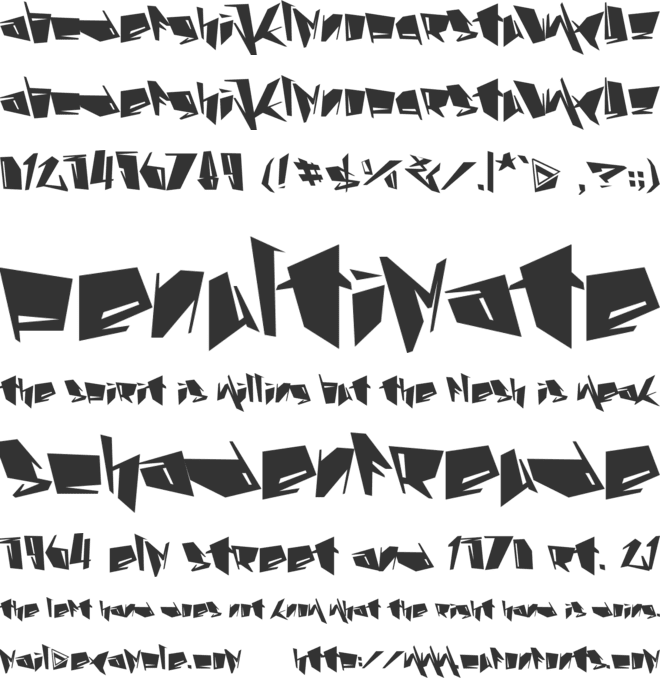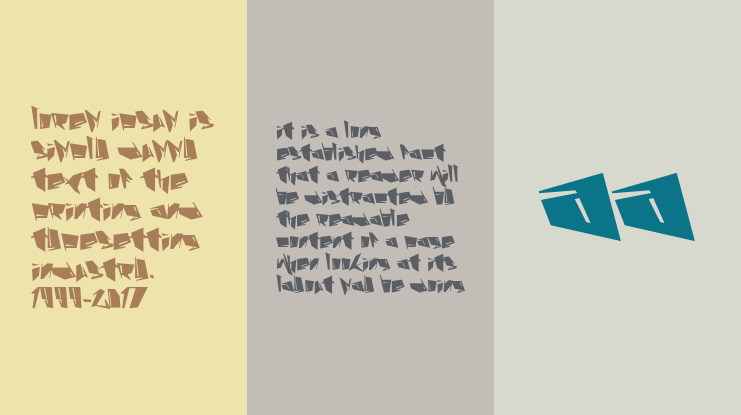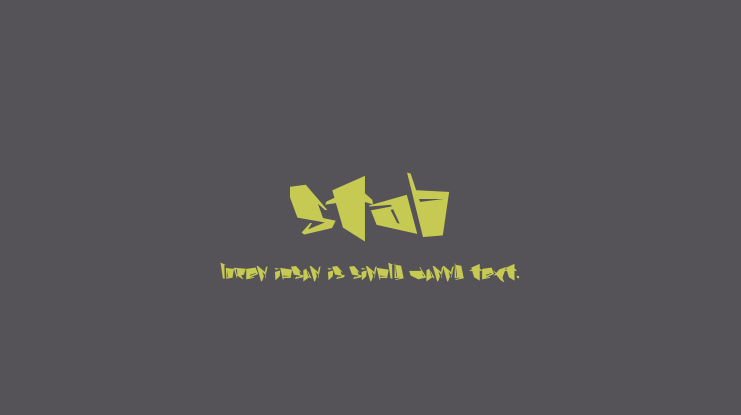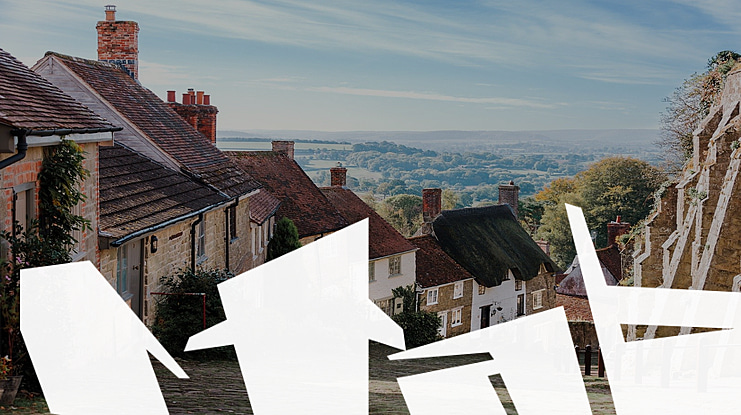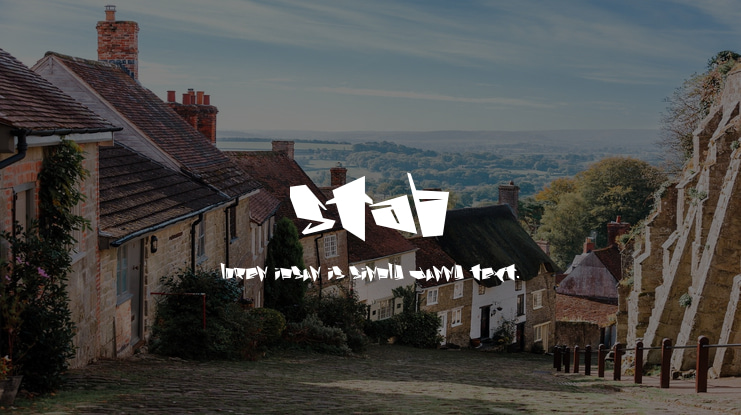
Stab Font
Inspired by graffiti letterform, this font is developed into a set a sharply pointed alphabet. The font features uneven widths and exaggerated strokes, letters interrupt with each other resulting in endless possibilities between characters combinations, creating some outrageous letterset and titles.